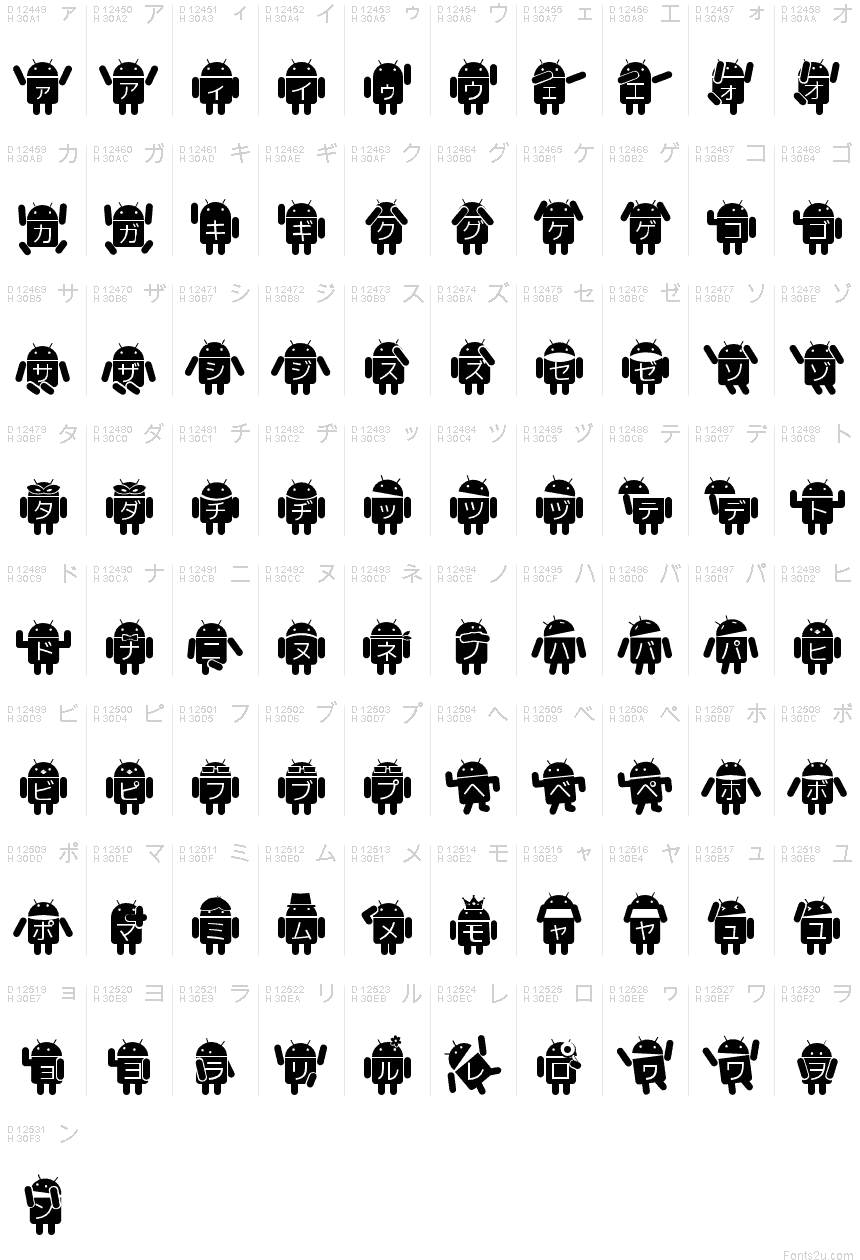
Droid Robot JapaneseRegular
Droid Robot Japanese is a free Japanese-style display font with a compact, mechanical build. Squared strokes and clipped corners give the lettering the look of a machine-made sign. The forms are dense and emphatic.
Game title graphics are its strongest setting, especially for robot battles and arcade action. The same hard-edged style can support technology packaging and event posters. In publishing, it is well suited to manga feature headings about Japanese pop culture and machines.